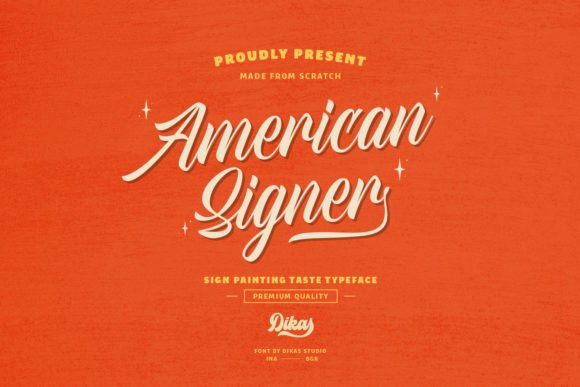
Discover the Perfect Script for Your Next Design Project
As a designer, there’s nothing quite like the thrill of finding the perfect font to bring your vision to life. It’s that moment when the words start flowing, and the ideas begin to take shape. You know, the moment when everything clicks, and you can’t wait to see your creation come to life. For many of us, this moment is what makes all the hard work worth it.
Enter the American Signer Font, a modern handwritten font that’s as bold as it is stylish. With its smooth curves and elegant flair, this font is perfect for fashion branding or editorial designs that require a touch of sophistication. Whether you’re working on a magazine cover or a fashion website, the American Signer Font is sure to add a level of sophistication that’s hard to resist.
American Signer Font Key Features
- Unique Characteristic: The American Signer font is a highly legible font, designed specifically for use in digital signage and public display applications, where readability is crucial.
- Font Style: The font is available in a single style, with a clear and modern design that is suitable for a wide range of applications, including business, education, and entertainment.
- Font Weight: The font is available in a single weight, with a clear and balanced design that is suitable for use in both body text and headings.
Designer Review: American Signer Font
Overall, I found American Signer Font to be a mixed bag. While it has its strengths, it also falls short in some areas.
Unique and nostalgic vibe: American Signer Font has a distinct, retro feel that’s reminiscent of classic American signage from the mid-20th century.
Wide range of weights: The font family includes a variety of weights, from light to bold, which makes it versatile for different design applications.
Legibility: American Signer Font is generally easy to read, even at smaller font sizes.
Lack of subtlety: Some users may find the font’s retro aesthetic to be too over-the-top or clichéd.
Less suitable for body text: Due to its ornate nature, American Signer Font may not be the best choice for large blocks of body text.
May not be suitable for modern designs: The font’s vintage aesthetic may clash with more contemporary design styles.
While American Signer Font has its charm, it’s not a font that I would use for every project. It’s best suited for designs that require a specific, nostalgic feel. For more modern or straightforward projects, I might opt for a different font.
Use the American Signer font to create visually appealing and accessible designs.
Combine it with other fonts to create a unique and eye-catching look.
Experiment with different font sizes and styles to create contrast and hierarchy in your design.
Use the American Signer font for:
Signage and wayfinding systems.
Branding and marketing materials.
Accessible and inclusive designs.
Q: Can I customize the American Signer Font to fit my design needs?
While the American Signer Font is designed to be a versatile and adaptable typeface, it is not intended to be heavily customized. However, you can experiment with different font sizes, colors, and combinations to achieve the desired look for your design project. Keep in mind that excessive customization may alter the font’s original aesthetic and integrity.